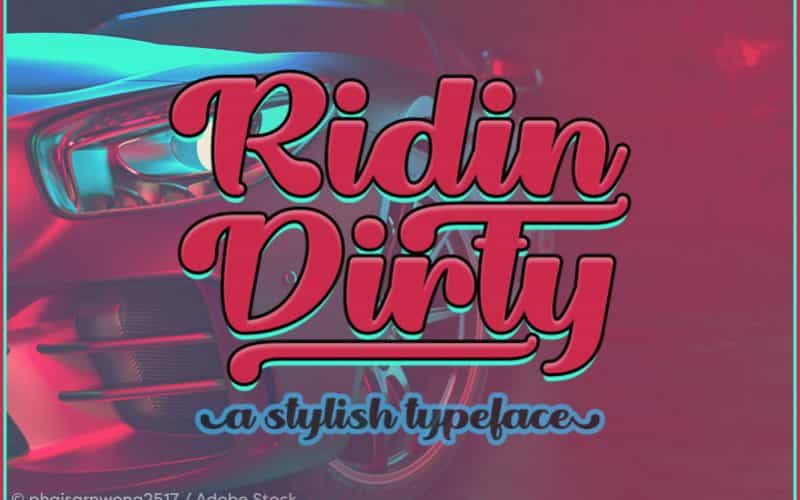
Ridin Dirty is a powerful font that will suit any logo, branding, product labels, posters and much more. Comes in 15 different lengths so you can swash things up a little in your designs.